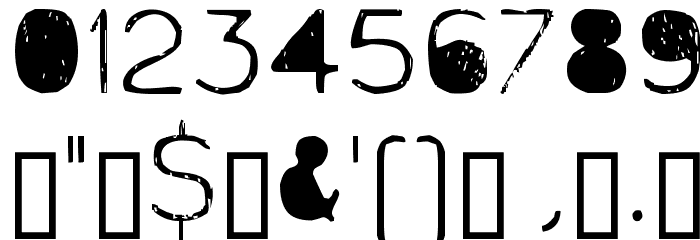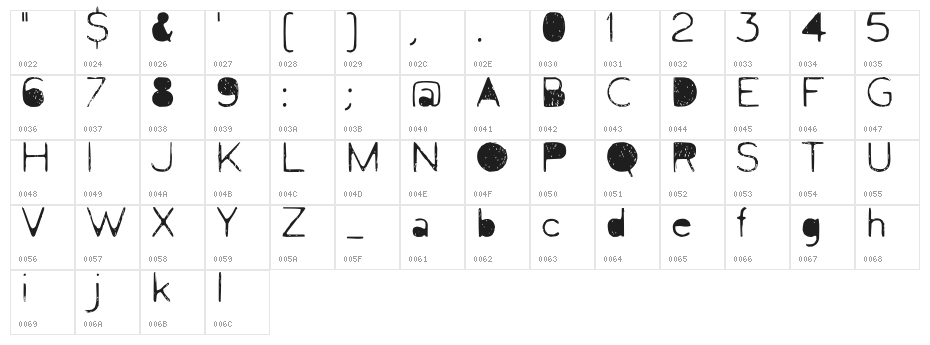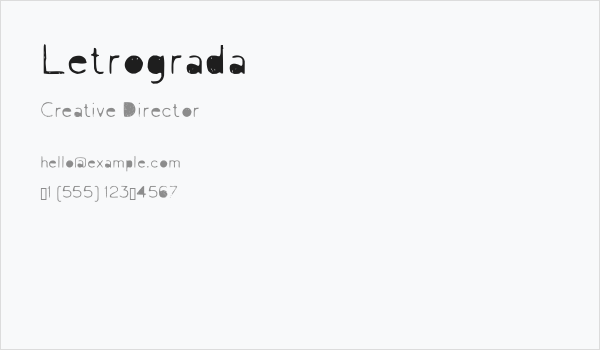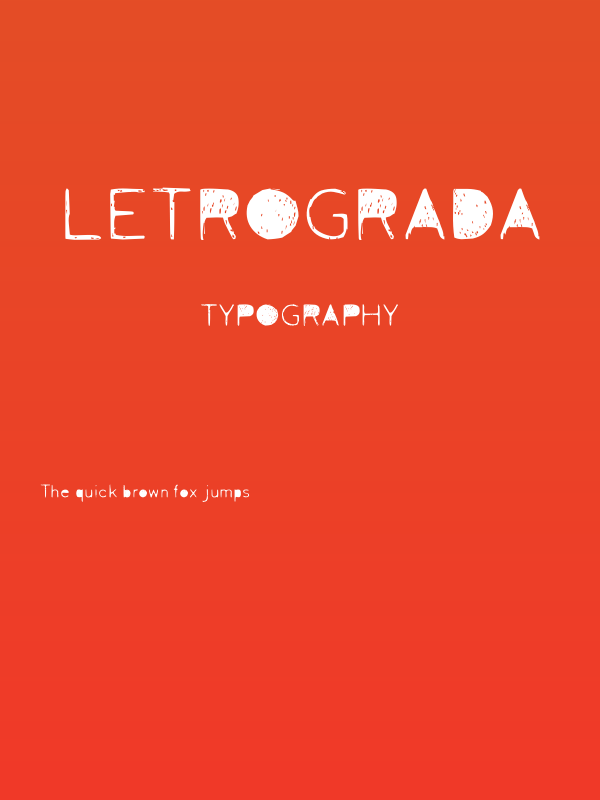
Letrograda Font
Letrograda Description
This font features a distressed, grunge style with a hand-crafted appearance. The characters are unevenly textured, giving them a worn and vintage look. The uppercase and lowercase letters maintain a consistent style, with irregular edges and a slightly rough finish. The numbers and special characters follow the same aesthetic, adding to the overall cohesive design. This font's unique character makes it stand out, ideal for projects that require a bold, artistic touch.
| Proposed Projects | Ideal for album covers, posters, branding for edgy or alternative products, and any design needing a bold, artistic touch. |